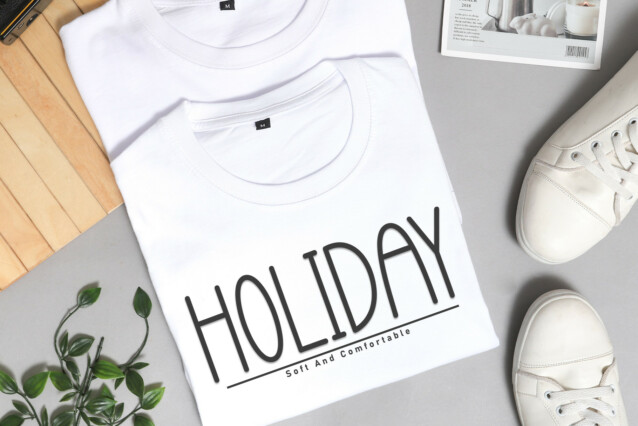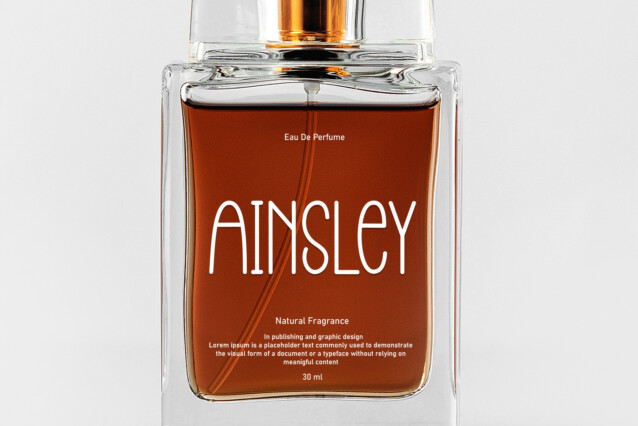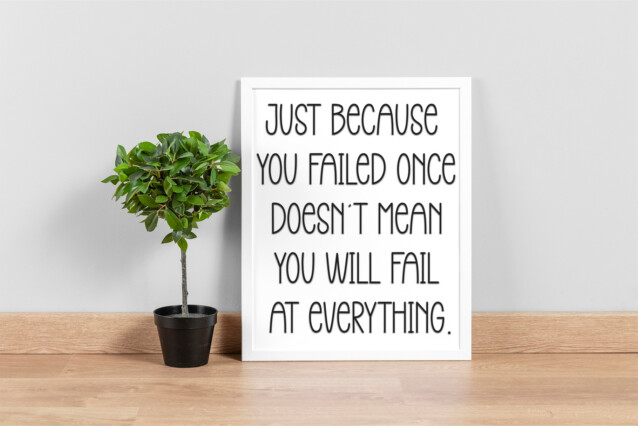
Aromatic Ginger Display Font
Aromatic Ginger Display Font feels equally charming and elegant. It looks stunning on wedding invitations, thank you cards, quotes, greeting cards, logos, business cards and every other design which needs a handwritten touch.